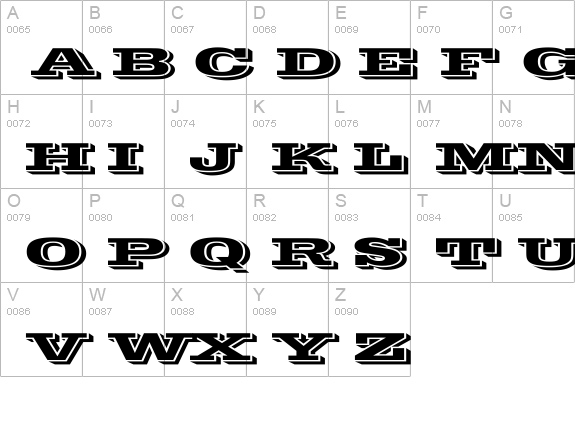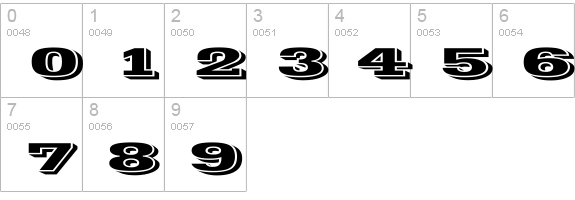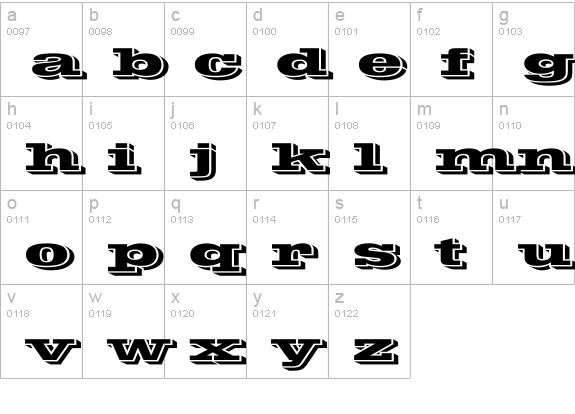
Vinera Ex Font Details
Introducing Vinera Ex, a stunningly elegant and versatile font that will elevate your design projects to new heights. With its refined lines and graceful curves, Vinera Ex exudes a sense of sophistication and modernity that is sure to captivate any audience. This exquisite font is the perfect blend of classic and contemporary, making it suitable for a wide range of applications. Whether you're designing a logo, creating a wedding invitation, or crafting a magazine layout, Vinera Ex will effortlessly enhance your work with its timeless beauty. But what sets Vinera Ex apart from other fonts on the market is its incredible value - it's completely free! That's right, you can freely download Vinera Ex from FontsMarket.com, ensuring that you have access to this remarkable font without breaking the bank. Not only does Vinera Ex offer exceptional quality and aesthetic appeal, but it also provides a seamless user experience. It is meticulously crafted to ensure legibility and readability across various devices and screen sizes, guaranteeing that your message will be effectively communicated to your audience. Whether you're a professional designer or a creative enthusiast, Vinera Ex is the perfect addition to your font library. Its versatility and timeless elegance make it a go-to choice for any project, and its free availability at FontsMarket.com makes it an absolute must-have. So don't miss out on the opportunity to elevate your designs with Vinera Ex. Download it for free today at FontsMarket.com and unlock a world of endless possibilities in your creative endeavors.